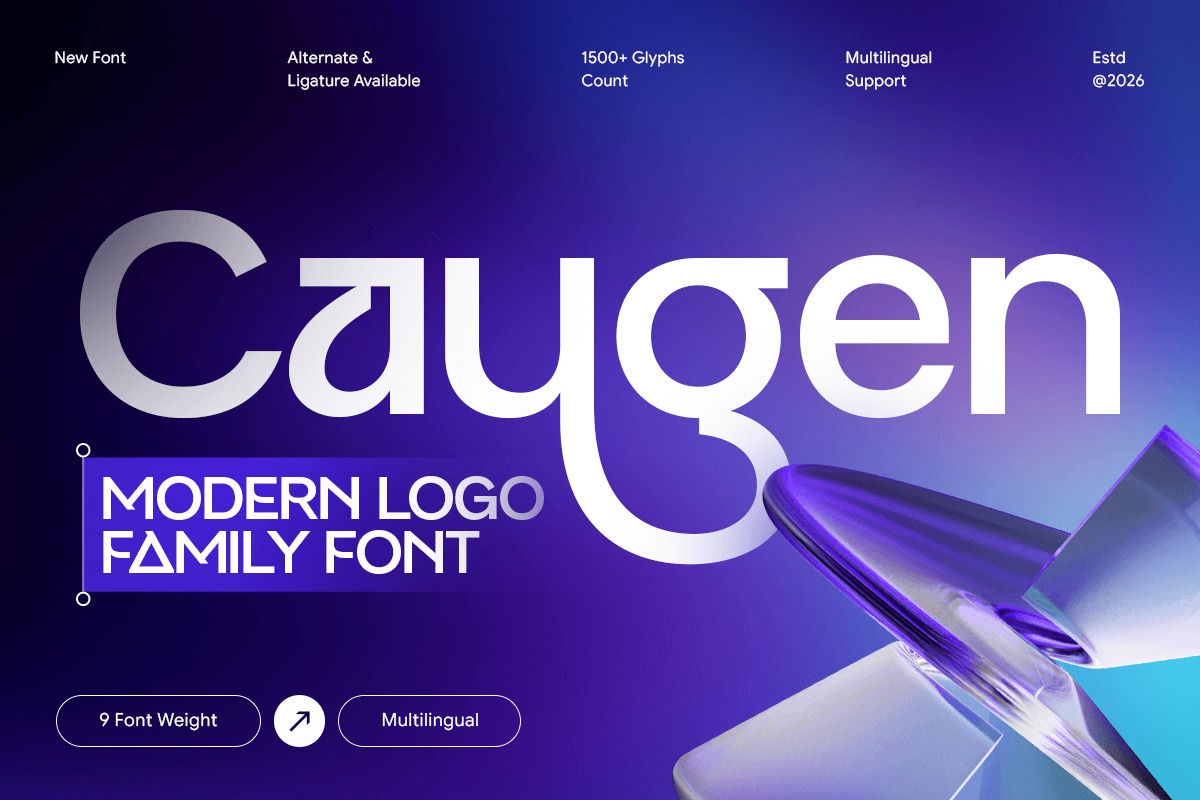
Caugen Font Family
Caugen Font Family is a clean and thoughtfully built typeface that works seamlessly for both professional branding and everyday creative uses.Caugen – Modern Logo Family Font Caugen is a modern logo family font designed to deliver versatility, professionalism, and clean contemporary style. Featuring balanced geometric letterforms, smooth construction, and a refined modern aesthetic, Caugen is perfect for logos, branding systems, editorial layouts, corporate visuals, and creative design projects.
Combining minimalist typography with a strong branding approach, Caugen creates a sleek and memorable visual identity. Its flexible family structure ensures consistency across multiple applications while maintaining excellent readability and a distinctive modern appearance, making it ideal for startups, agencies, fashion brands, and premium business visuals.
Caugen – Modern Logo Family Font Features:
Modern minimalist style with professional branding aesthetics
Available with Multiple weights, around 9 weight ready
Clean geometric letterforms with balanced proportions
Ideal for logos, branding, editorials, and corporate design
Font family with versatile weight and style options
Uppercase, lowercase, numerals, and punctuation included
Perfect for agencies, startups, fashion, and business visuals
Build a refined visual identity with Caugen – the modern logo family font made for clean and versatile branding.